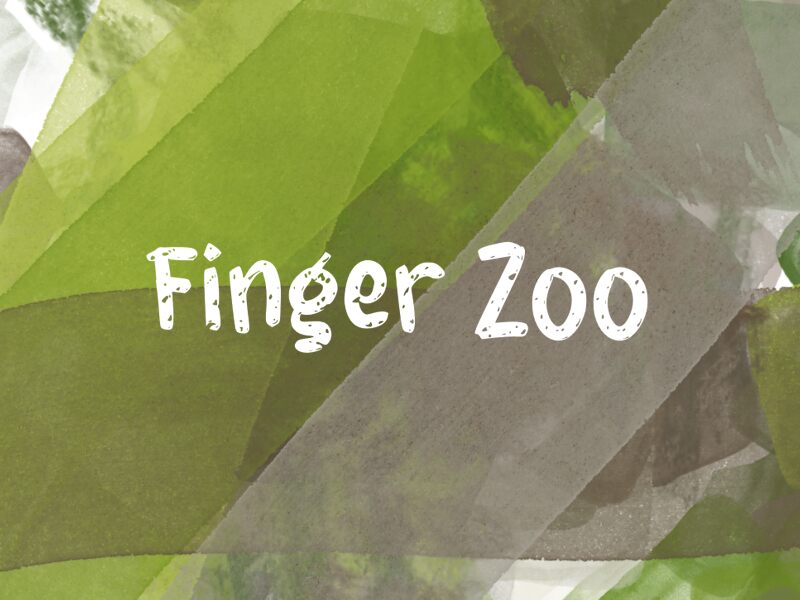
Finger Zoo
Finger Zoo is a captivating brush font that exudes a playful, handcrafted charm. Designed by the talented wep, this font boasts a unique, organic aesthetic that evokes a sense of whimsy and spontaneity. The bold, expressive strokes and irregular shapes create a dynamic, almost kinetic quality, lending an energetic and expressive vibe to any text.
This font's versatility shines through, making it a versatile choice for a wide range of design applications. From vibrant, attention-grabbing headlines to playful branding and packaging, Finger Zoo's distinctive character can elevate any project with its captivating personality. Whether used for digital or print media, this font's strong visual impact and emotive qualities are sure to leave a lasting impression on viewers.